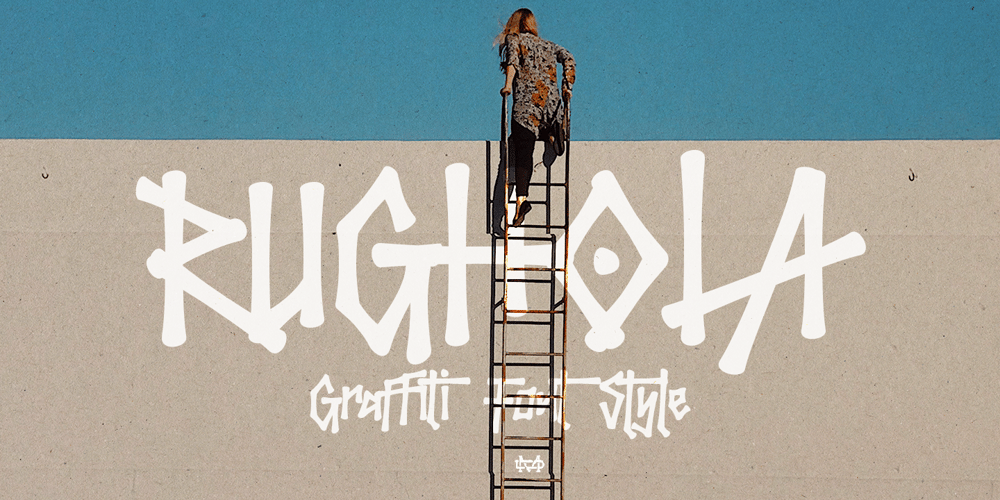
Rughola Font Family was designed by madededuk and published by madeDeduk. Rughola contains 1 styles and family package options. Rughola is a graffiti font inspired from 90s street hip hop style. Clear and unique you can explore and combine creating rhythm for comfortable reading. This font perfect for any projects, such logotype, stickers, packaging design, headlines, brand identity, t-shirt, posters, magazines, books, Instagram, websites, and many more.Feature Uppercase & Lowercase Number & Symbol International Glyphs Multilingual support Alternative Ligature Hope you enjoy it.